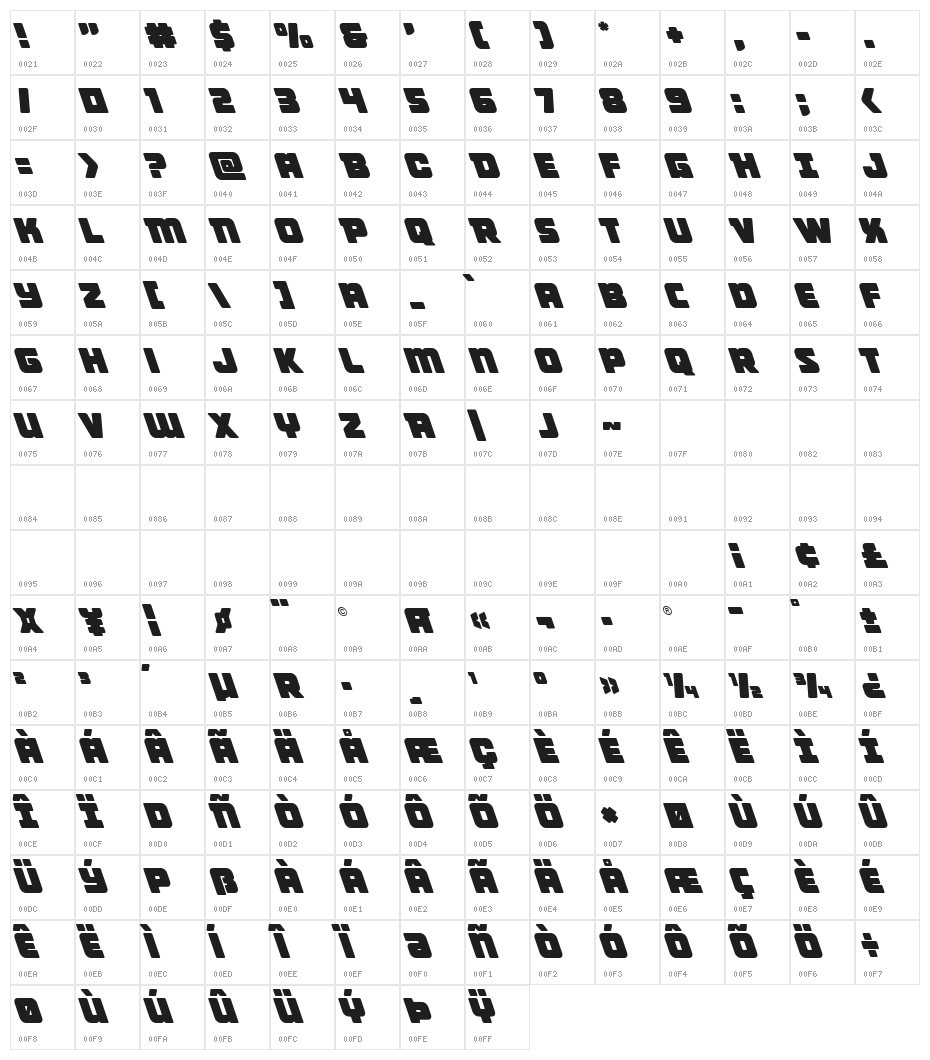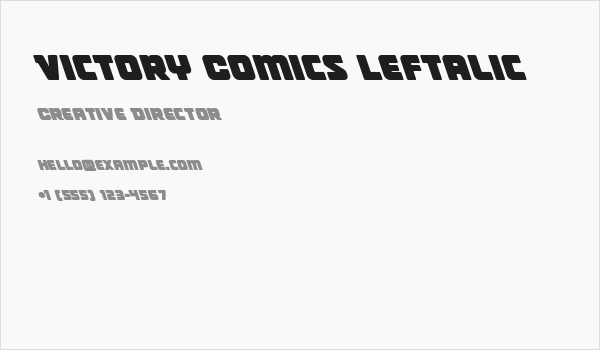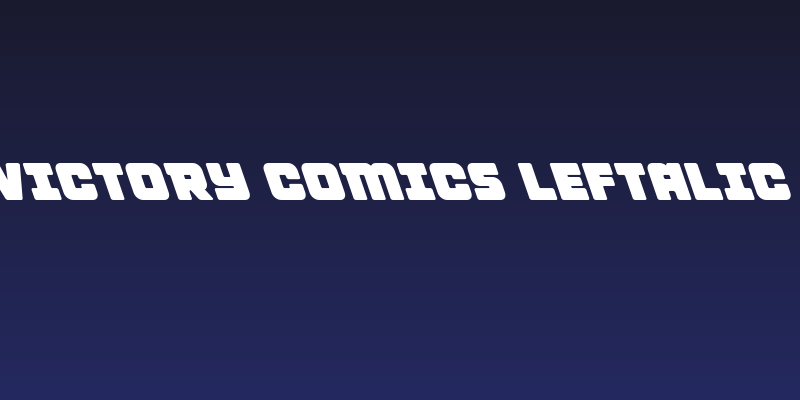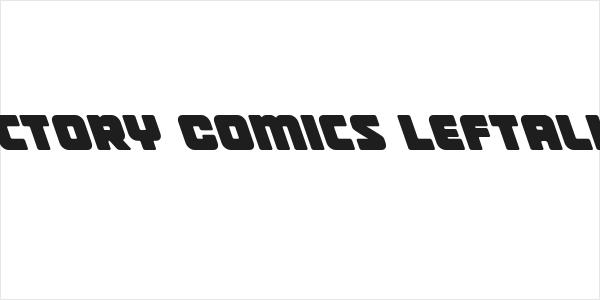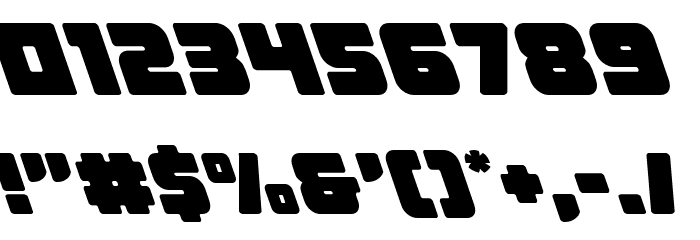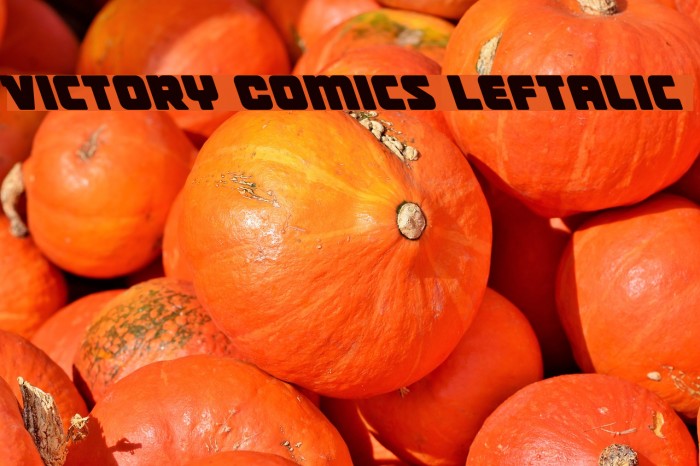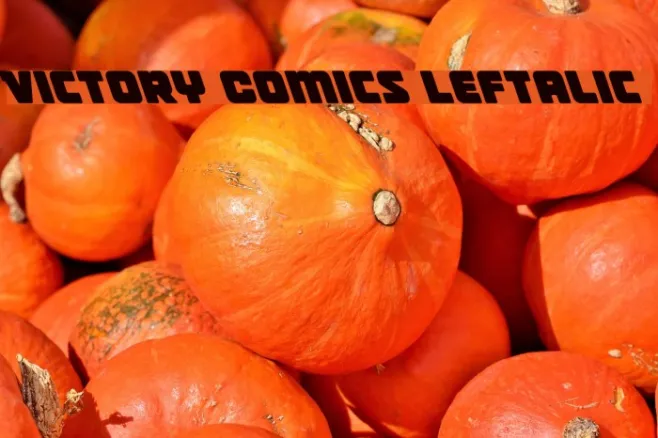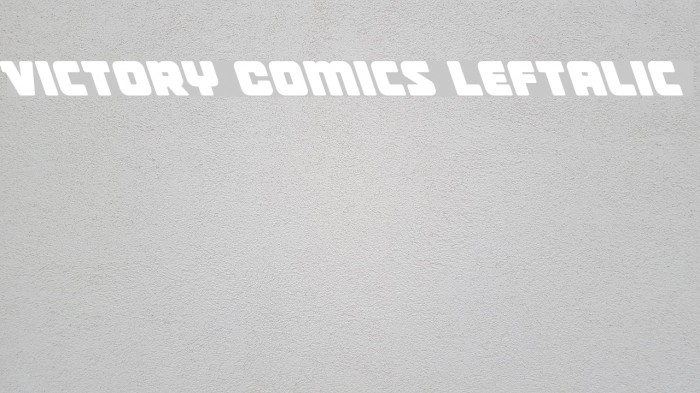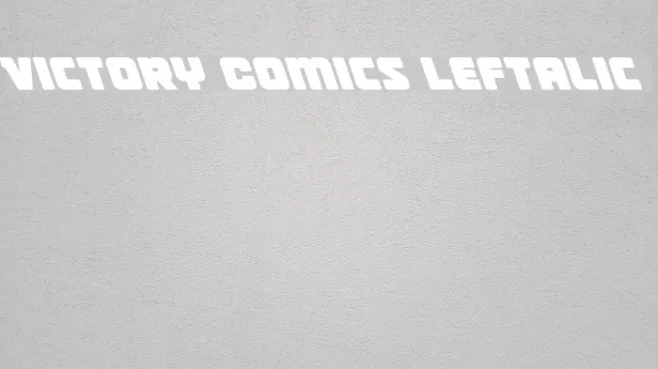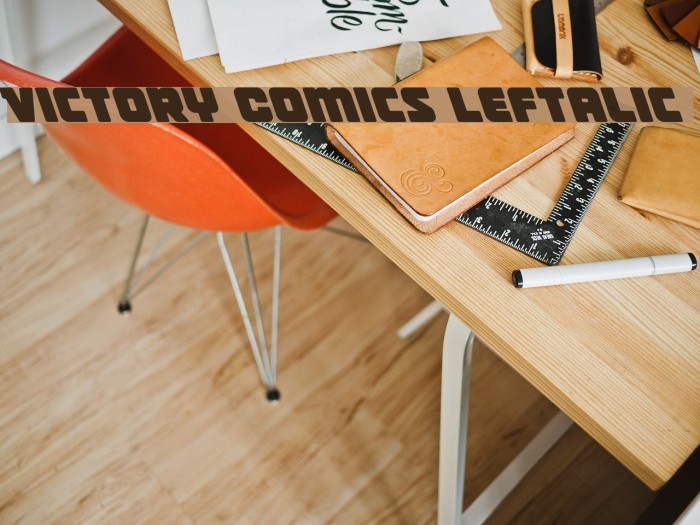
Victory Comics Leftalic Font
Victory Comics Leftalic Description
This font features a bold and dynamic style with a distinct slant, giving it an energetic and forward-moving appearance. The characters are robust and have a strong presence, making them ideal for attention-grabbing designs. The uppercase and lowercase letters maintain a consistent weight, contributing to a cohesive look. The numbers and special characters are equally bold, ensuring they stand out in any context. The overall design is reminiscent of comic book lettering, with a playful yet assertive vibe.
| Proposed Projects | Ideal for comic book titles, posters, logos, and any project requiring a bold, energetic typeface. |